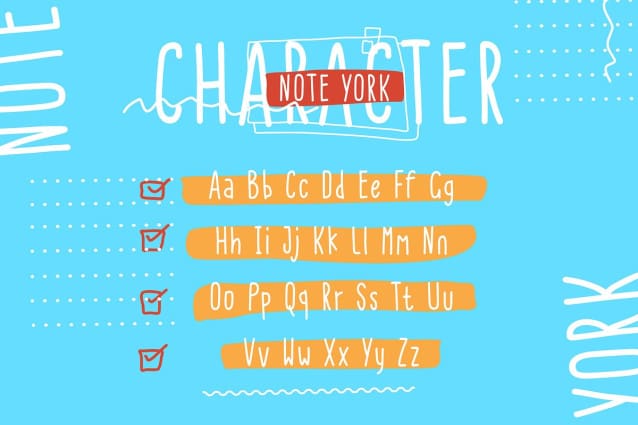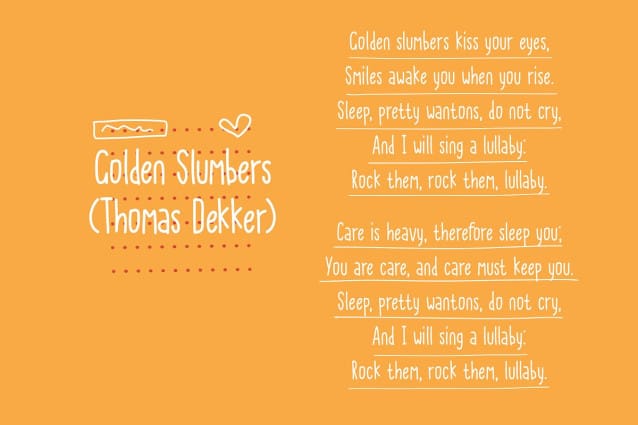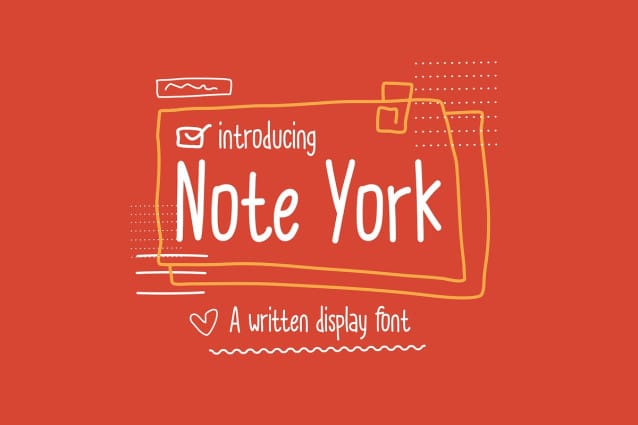
Note York Font
Note York Font is a handwritten font designed with a simple yet captivating style. Each letter and character has a clean and clear shape, with a distinct personal touch.
The Note York font is created with inspiration from the need for a simple yet visually appealing handwritten font. Its creator aimed to design a font that is easy to read and suitable for various design projects, with a natural and uncomplicated handwriting style.
In its history, this font was originally designed to meet the needs of users seeking a simple yet elegant handwritten font. Note York can be used in various types of designs such as greeting cards, logos, posters, and much more. Its clean and simple design makes it easy to blend with other design elements, providing a personal touch and unique characteristics to each artwork.
By using the Note York font in your design, you will bring forth a sense of simplicity and clarity. This font will provide a distinct personal touch and enrich your design with an elegant and captivating impression.